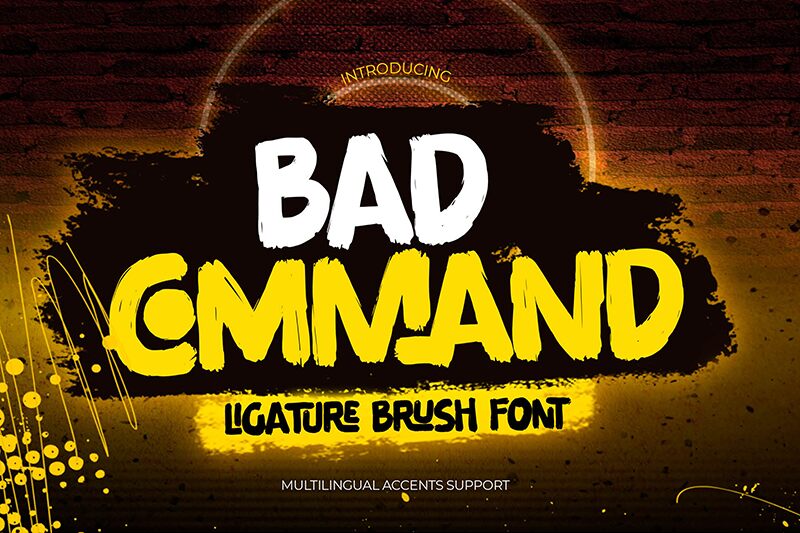
Bad Command
Bad Command, a ligature brush font crafted by Gassstype, embodies the spontaneous energy of authentic handwriting with its dramatic movement and casual quick strokes. This extra-bold font boasts strong characteristics that invoke a modern and fun aesthetic, making it an ideal choice for a wide range of creative endeavors.
Whether you're designing eye-catching posters, constructing personal DIY projects, or branding unique packaging - Bad Command infuses each application with undeniable personality. Its suitability for labels, quotes, greeting cards, websites, photography overlays and much more is enhanced by its natural appearance that resonates with viewers.
Dive into the world of Bad Command and let your designs stand out with its cool strength and captivating charm.